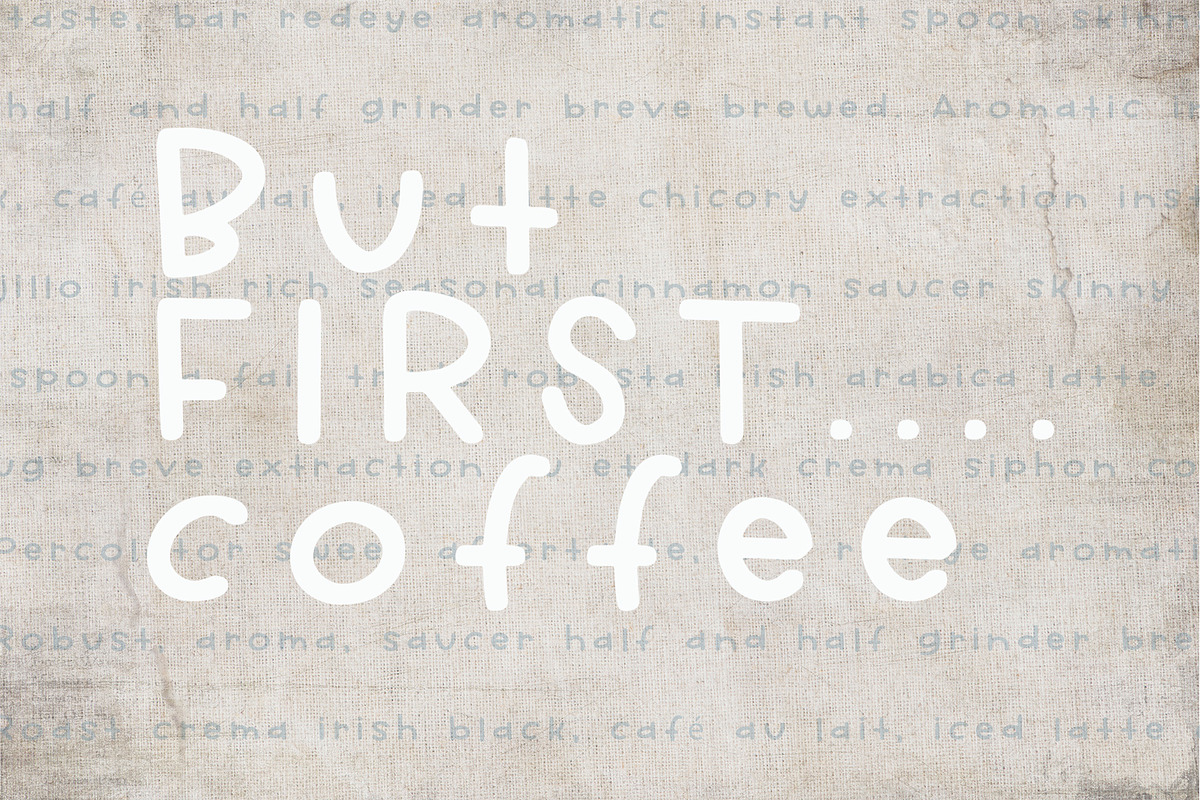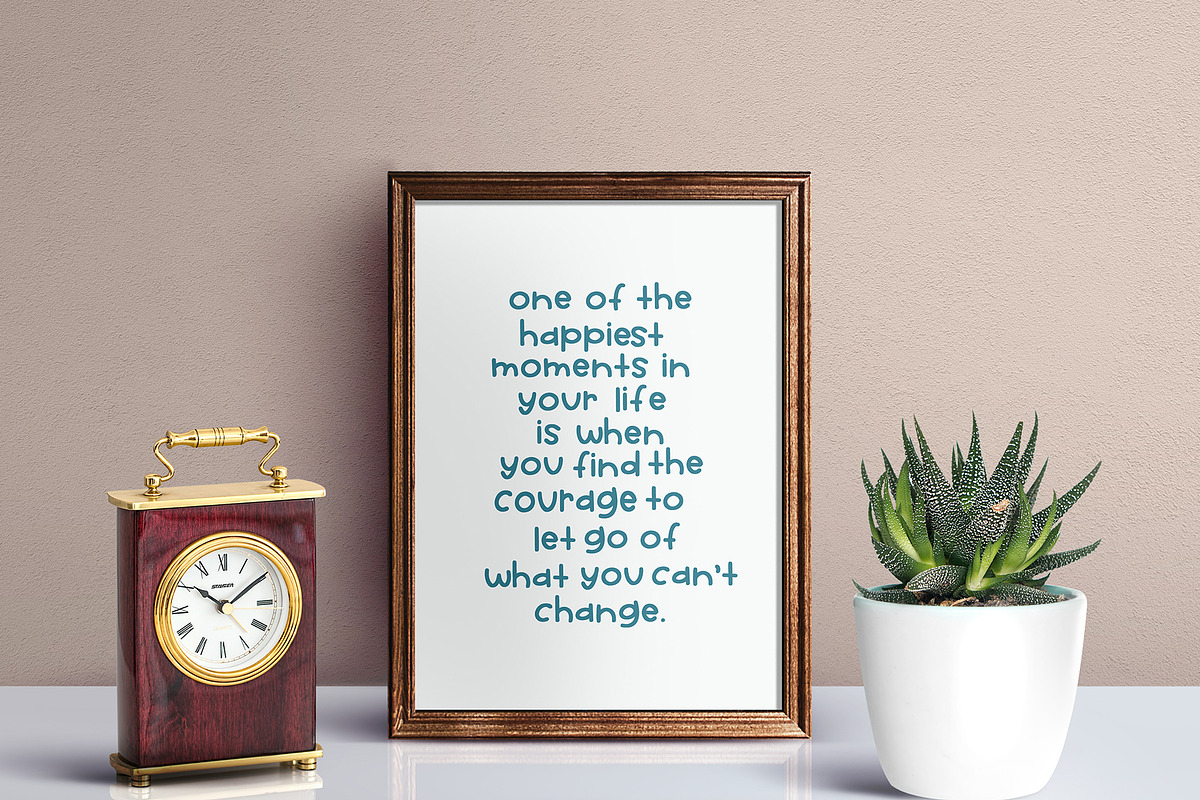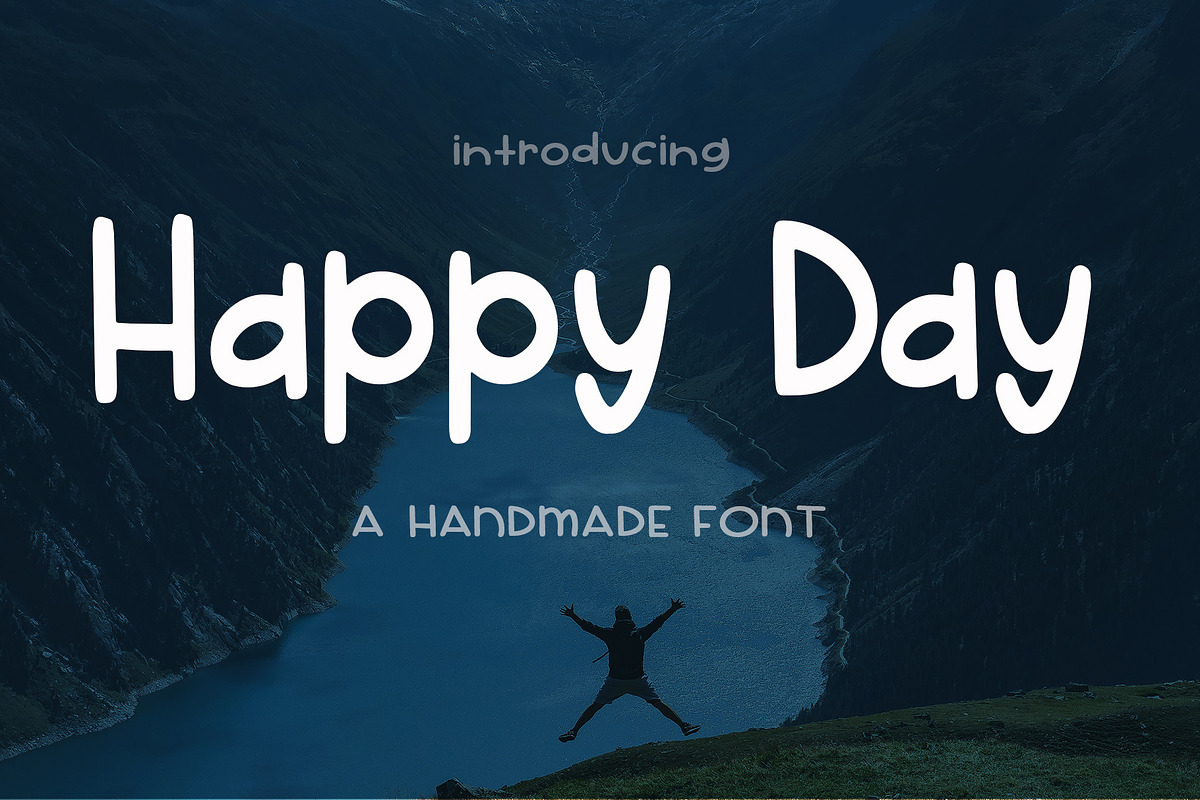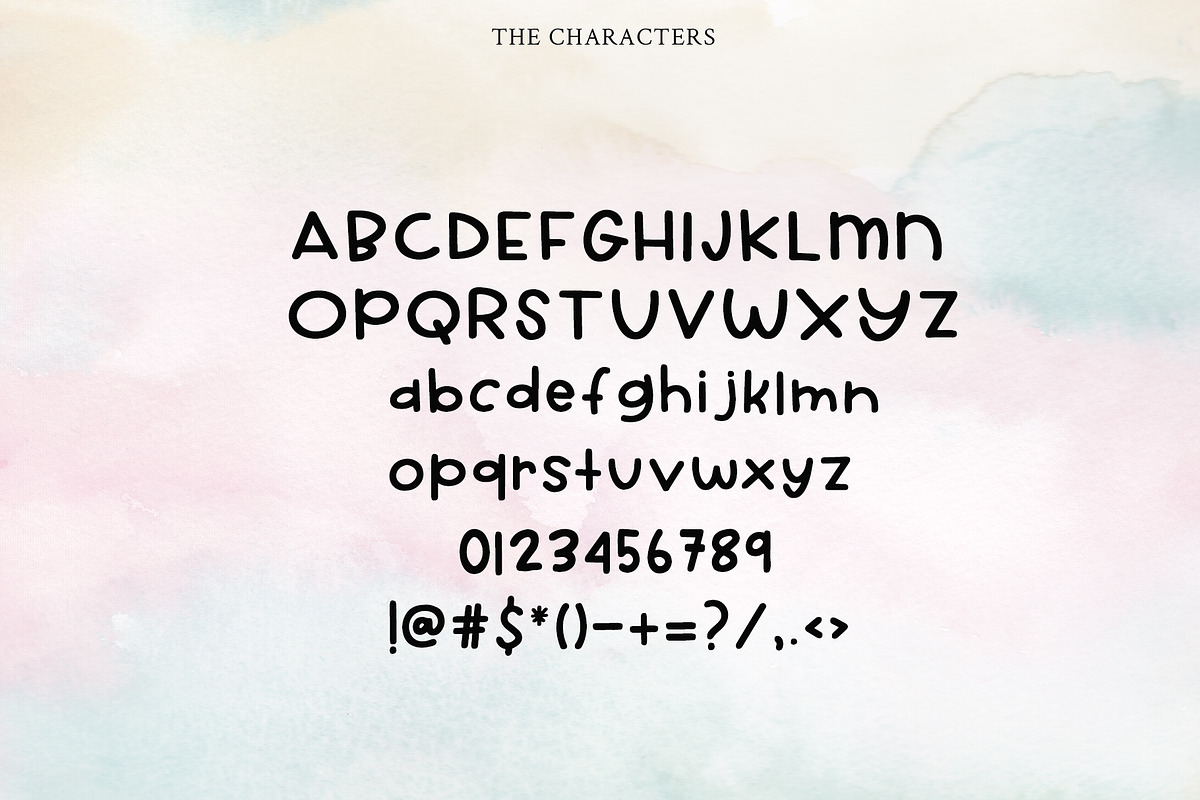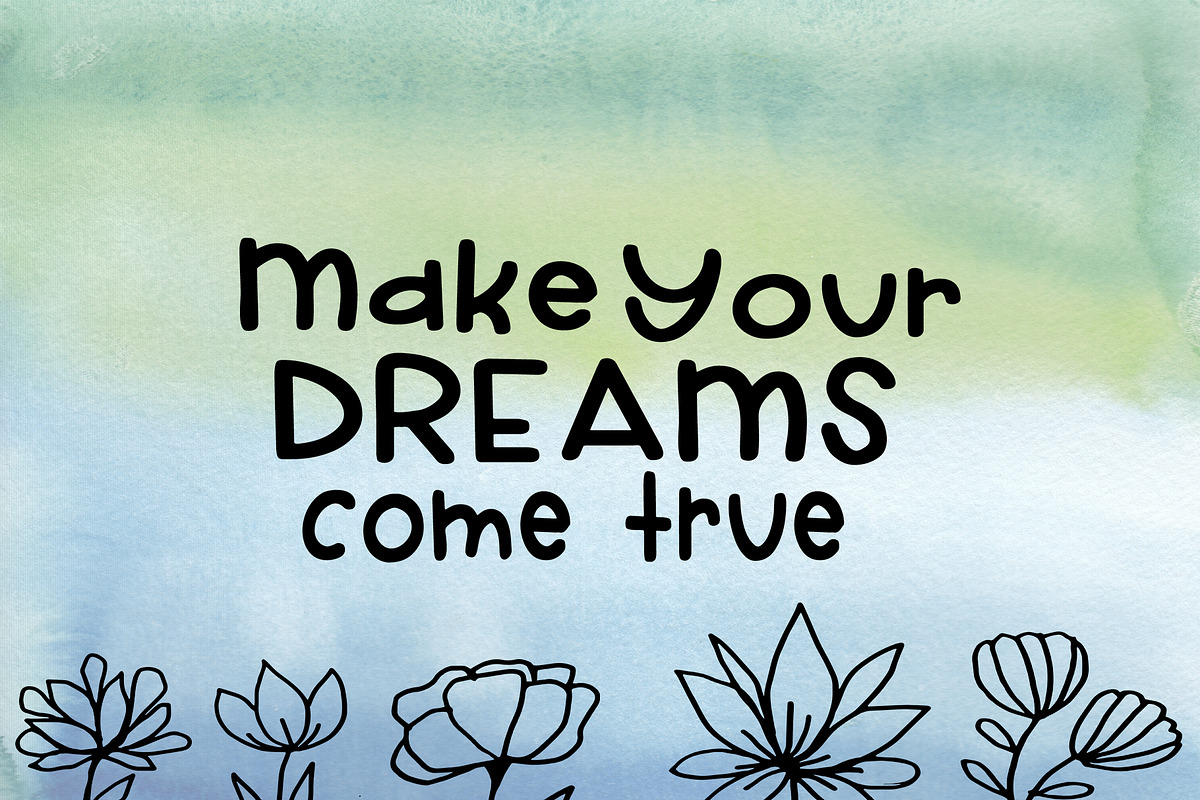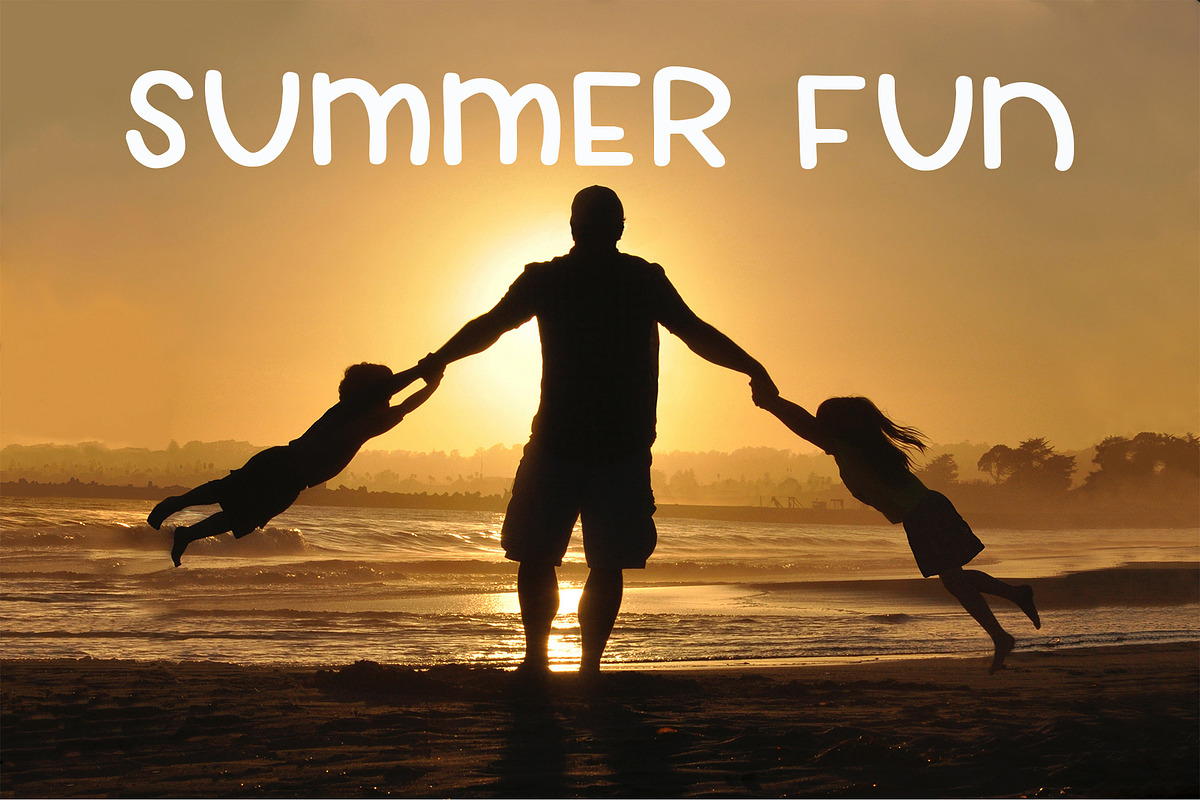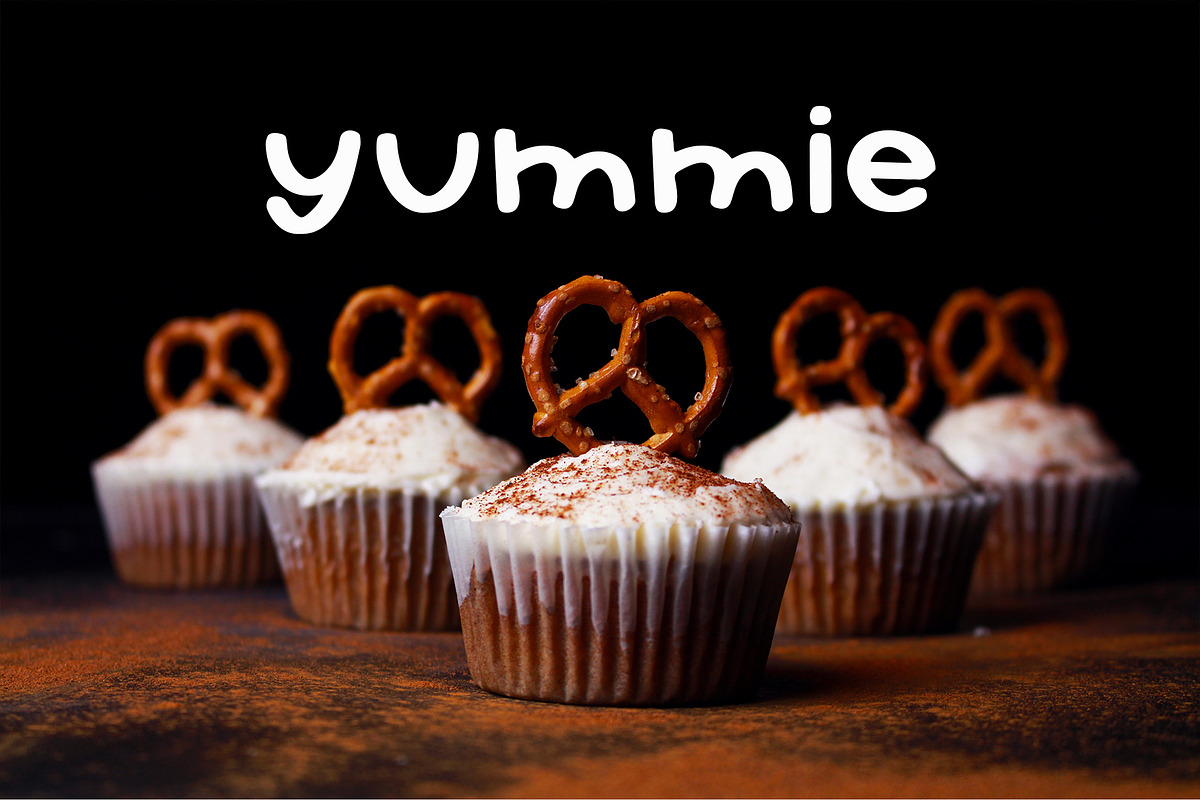
Happy Day Font
Happy Day is a bold, upper and lower case font that is perfect for quotes, headings, logos, blogs. There are no accent or special character included. Enjoy.
- There are no accent or special character included.
Happy Day Font by Sweet Fig fits naturally into Branding, posters, packaging, typography.